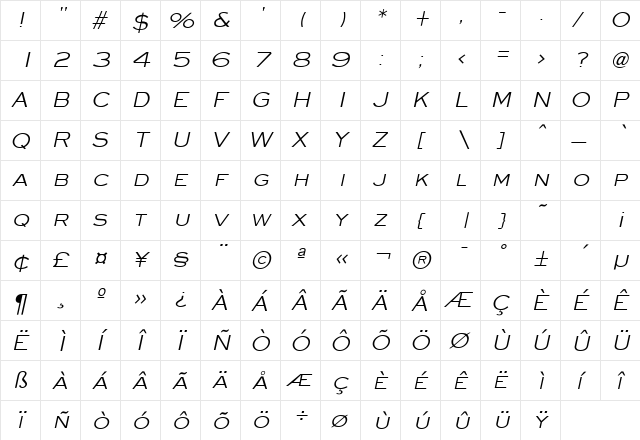
Eye glass Italic
Design Context for Eye glass Typeface
Eye glass offers clean, dependable letterforms without strong stylistic allegiance, making it a practical choice for designers who need flexibility. Its italic angle brings a sense of urgency and motion to the letterforms.
Pro Tip: Use Eye glass for emphasis, pull quotes, and subheadings where its slanted energy can add rhythm to the layout.